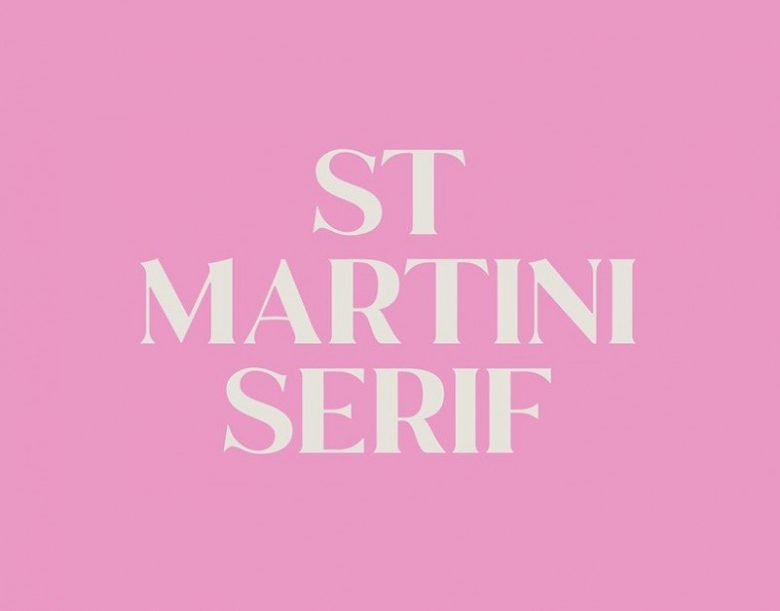
St Martini Serif Font
St Martini Serif Font is a modern and stylish typeface with unique details. Made from font designer named Graham Paterson. This font works best in bigger sizes, useful for headlines, titles. You can see the beautiful details in any characters that will make the font more fashionable.